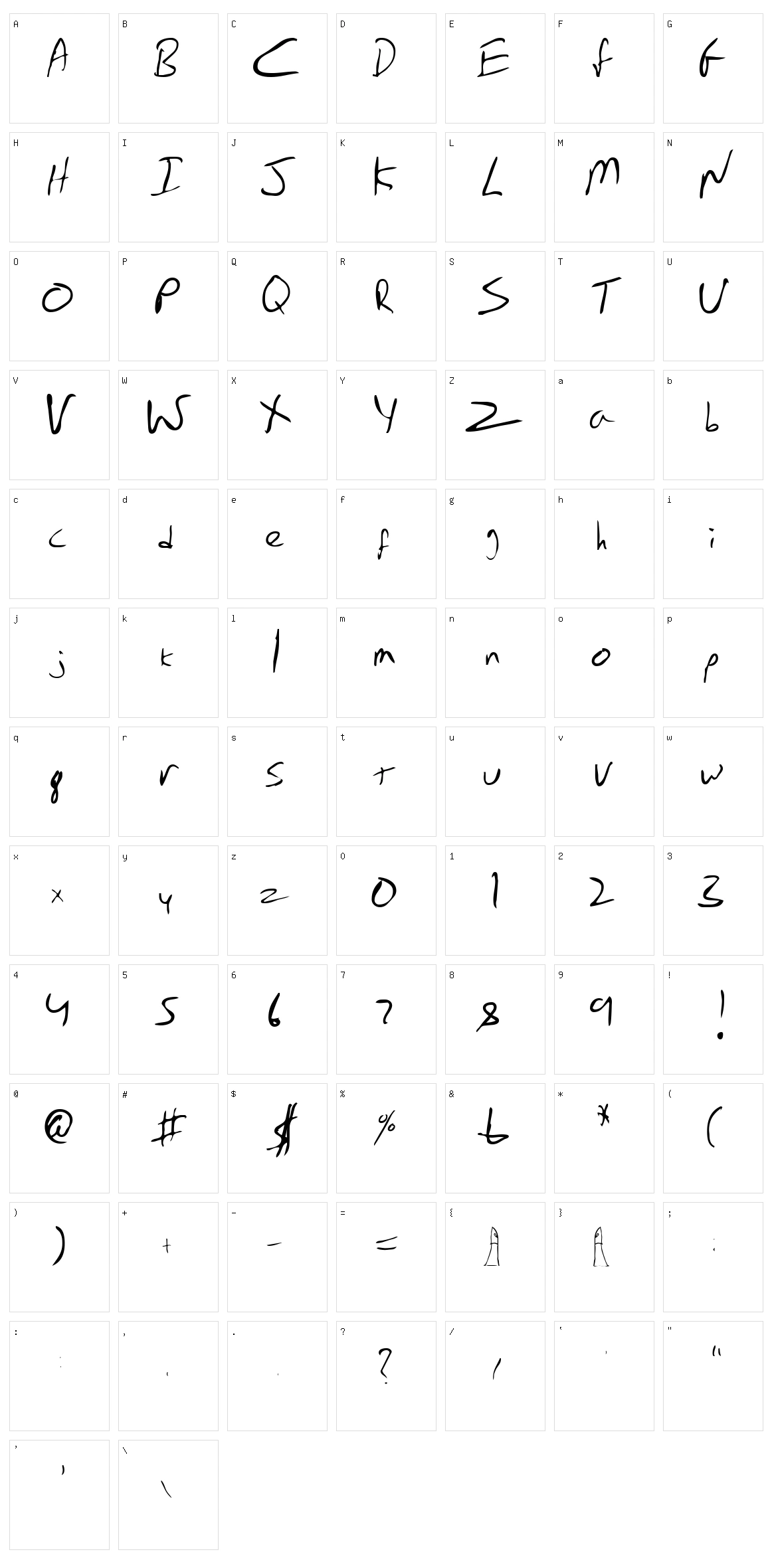
Now you can forge The Claw's own fiendish handwriting and release Imperial Orders with all the power, majesty, and authority of The Claw himself.
The little drawings inserted for the [ and ] keys are Jack and Bert, respectively, two characters from The Claw's ongoing comic strip "Tales Of The Illuminati". (Visible at http://www.mysite.com/empire) Now you, too can tell funny stories about the secret cabal that really rules the world!